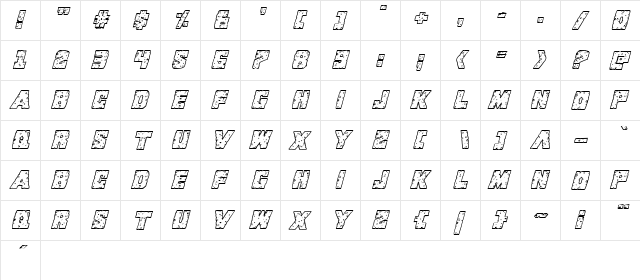
King Commando Riddled III Italic Italic
Design Context for King Commando Riddled III Italic Typeface
King Commando Riddled III Italic is a composed and adaptable typeface that performs quietly and consistently across a wide range of design contexts. The dynamic lean of this cut emphasises speed and emphasis in any layout.
Pro Tip: Try King Commando Riddled III Italic for annotation and caption copy alongside an upright companion — the contrast in angle creates a dynamic but ordered typographic system.